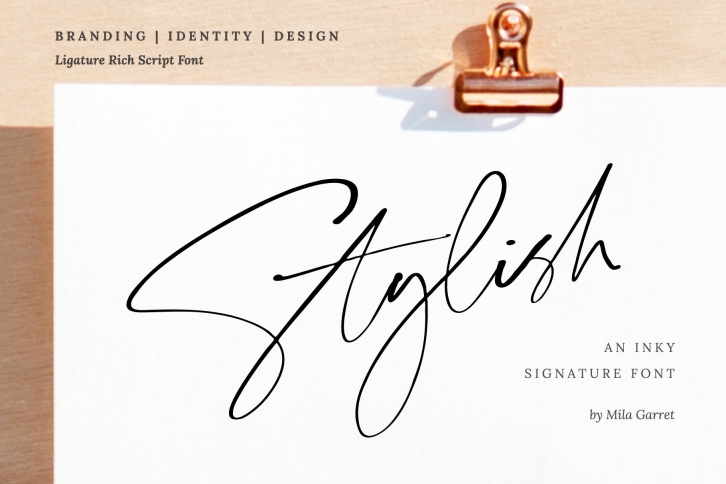
Introducing a brand new handwriting font, Stylish Signature, a modern and minimal typeface packed with handwritten ligatures. Stylish Signature adds a chic elegance to websites, wedding stationery, modern logos and personal branding, social media quotes, and more. Included are 127 handwritten ligatures (glyphs of two or more letters), as well as a full set of alternate capitals (great for signature logos that use the same first letter in both names).
Stylish Signature Features
- Full Set of standard alphabet and punctuation
- Extra set of Alternate uppercase
- Extra stylistic alternates and ligatures
- Multilingual Characters (ÃÂÄÀÅÃÆÇÃÉÊËÈÃÃŽÃÌÑÓÔÖÒØÕŒÞÚÛÜÙẂŴẄẀÃŶŸỲ
áâäà åãæçðéêëèÃîïìñóôöòøõœþßúûüùẃŵẅáºÃ½Å·Ã¿á»³Å šž€£¥ªº)